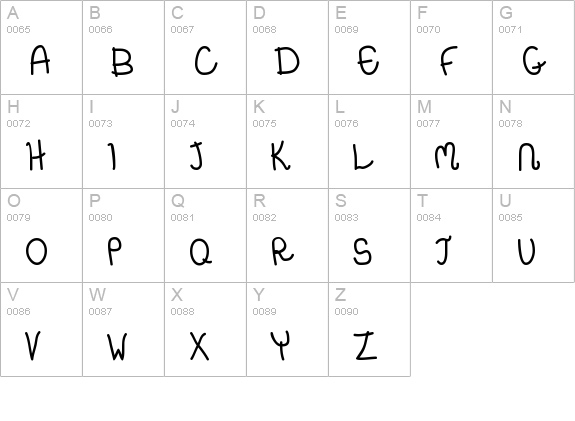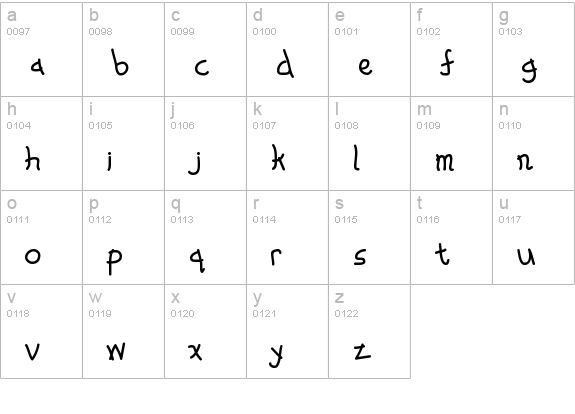
Whimsico Font Details
Whimsico font is a delightful and enchanting typeface that will add a touch of whimsy to any design project. With its playful curves and unique letterforms, Whimsico is perfect for adding a dash of creativity and fun to your designs. This free font is a true gem for designers looking to add a touch of magic to their projects. Whether you're designing a poster, creating a logo, or crafting a greeting card, Whimsico will bring a sense of joy and wonder to your work. The flowing and elegant strokes of Whimsico font make it versatile and suitable for a wide range of design purposes. Its versatility allows it to be used for both headlines and body text, ensuring that your message is conveyed in a visually appealing and engaging way. What sets Whimsico font apart is not only its charming aesthetic, but also its availability as a free download. You can easily access and download the Whimsico font for free at FontsMarket.com. This means that you can bring a touch of whimsy to your designs without breaking the bank. So why wait? Download Whimsico font today and unleash your creativity with this delightful and freely available typeface. Let your imagination run wild and create designs that are truly magical with the help of Whimsico font from FontsMarket.com.